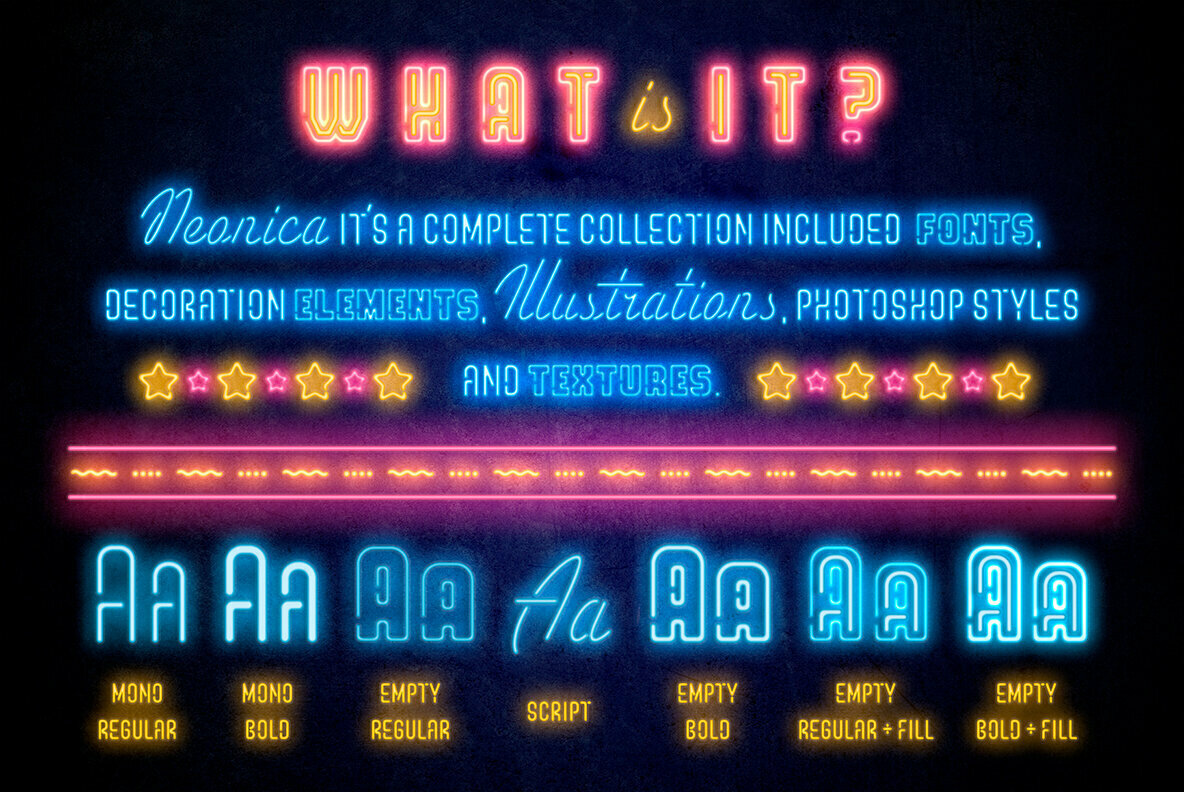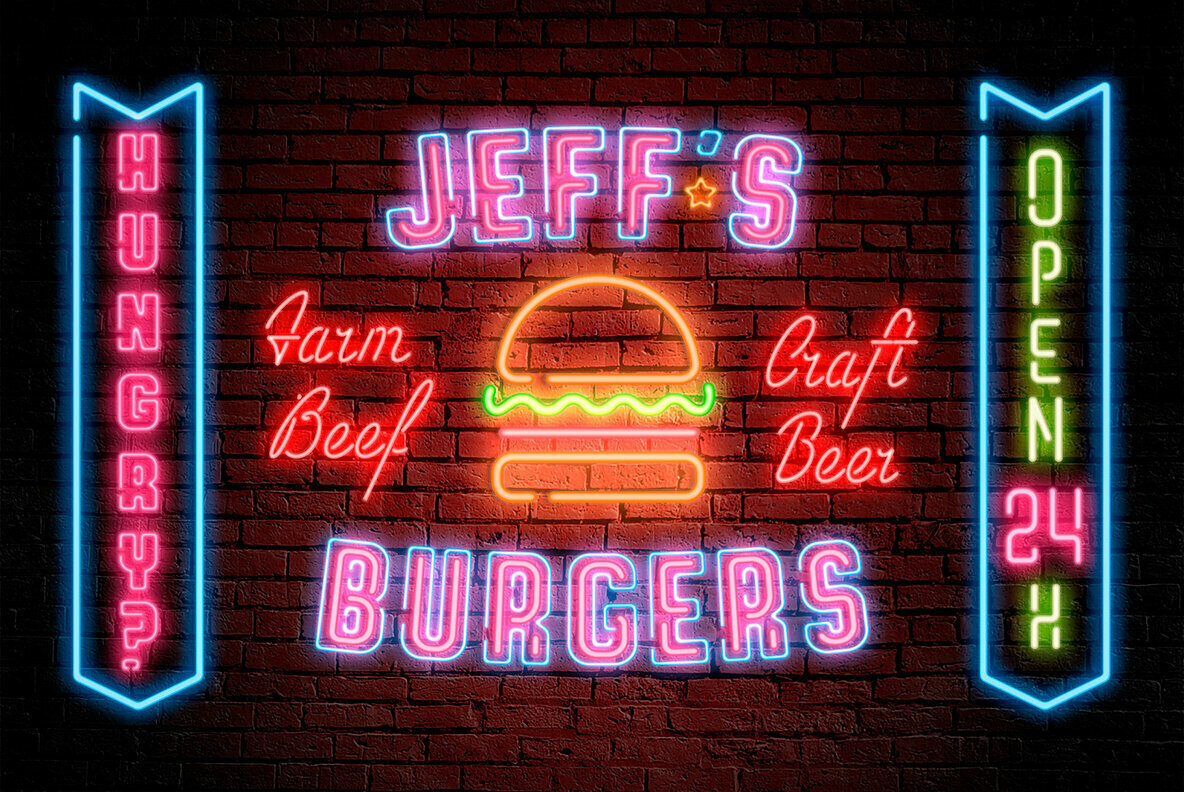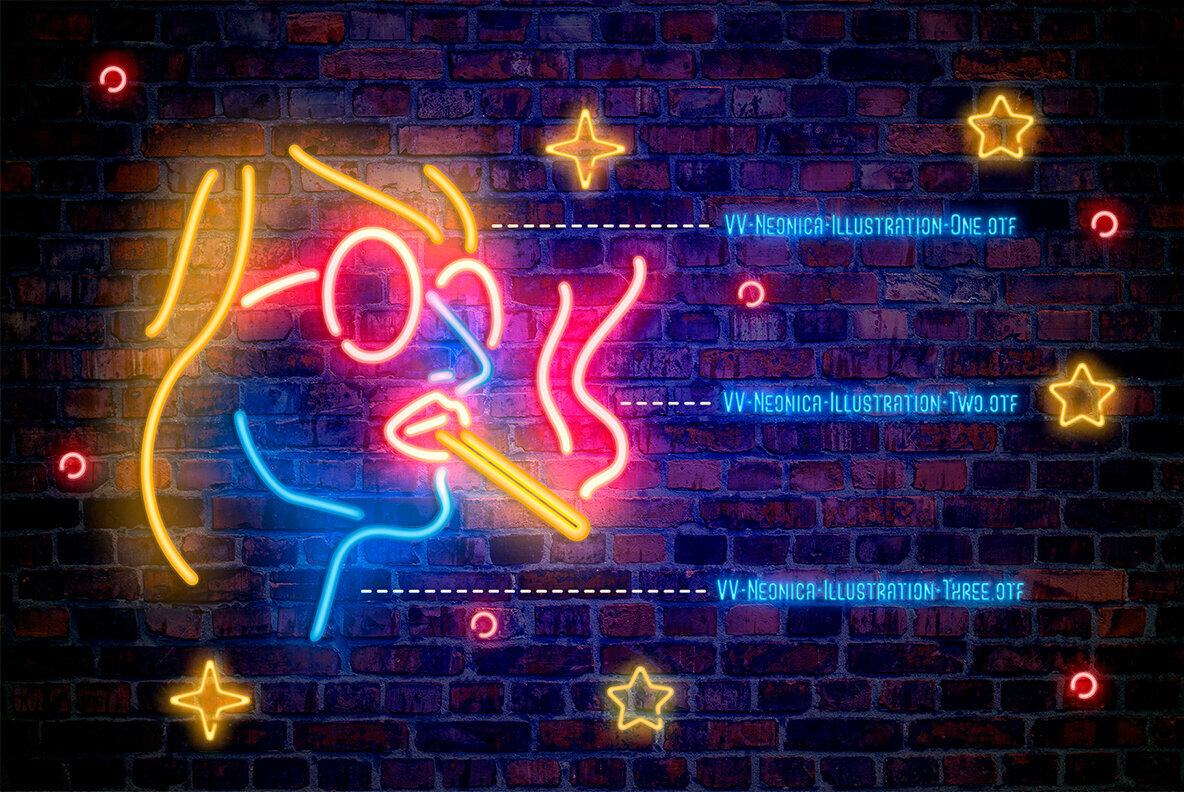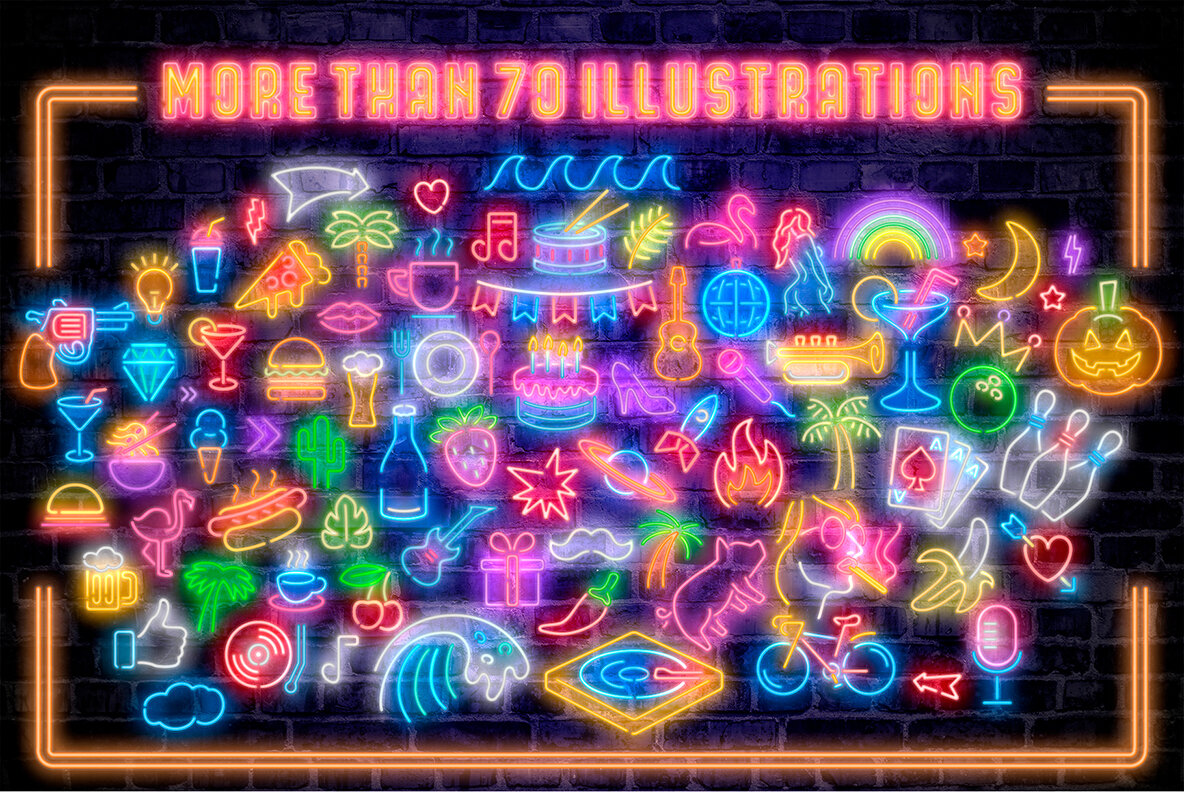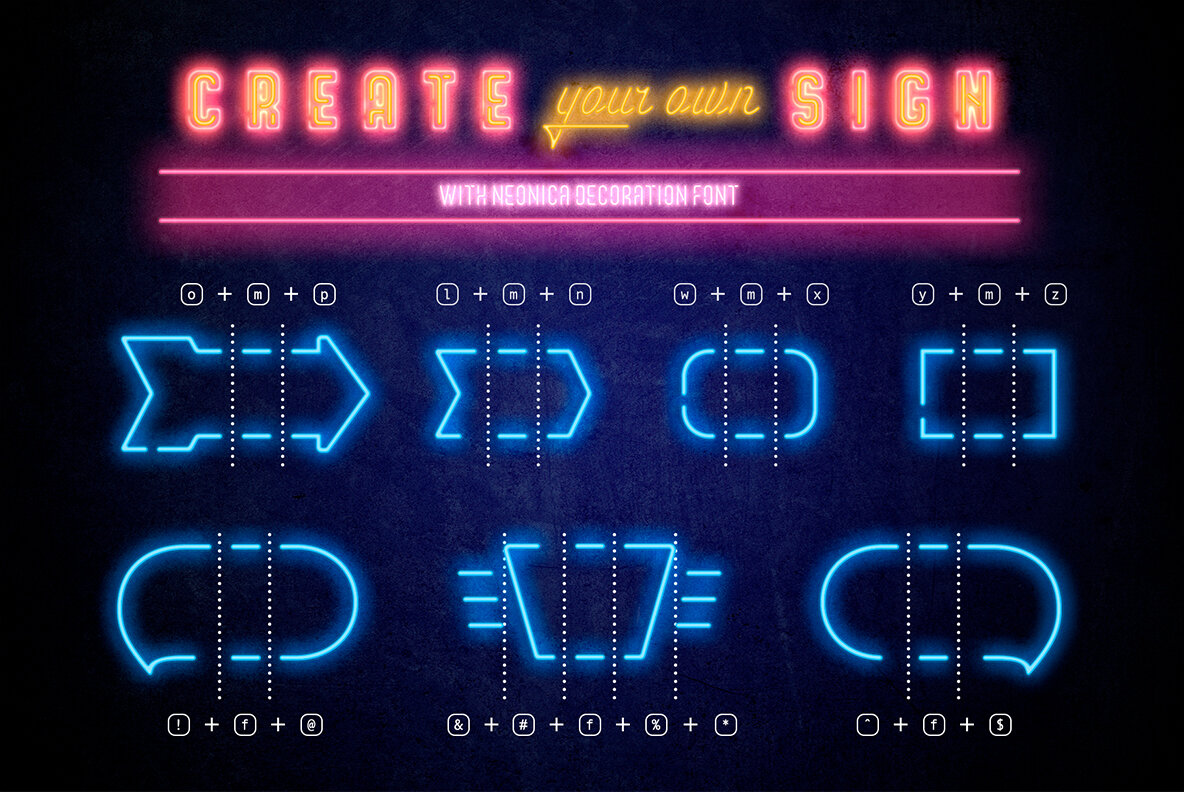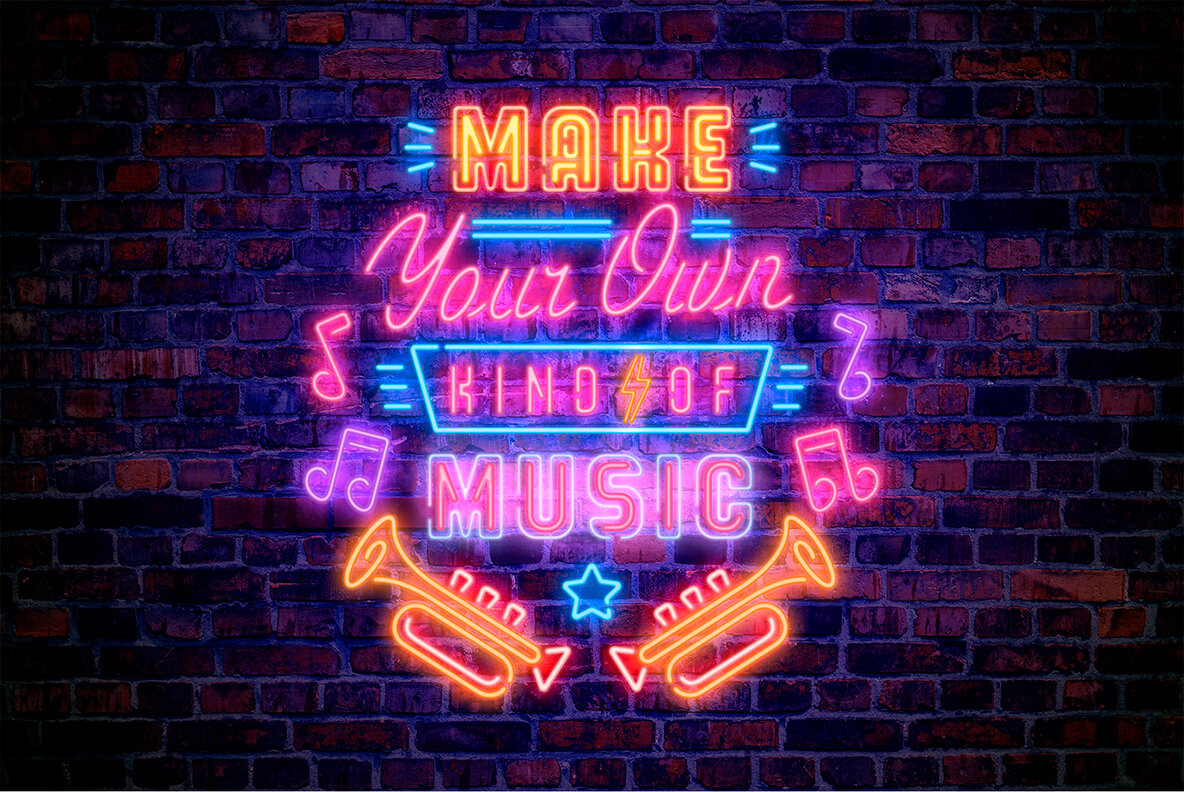
The Neonica Toolbox Font
The Neonica Toolbox - a complete collection to creating awesome neon designs! This is a complete collection which included the fonts, decorations, illustrations, Adobe Photoshop styles and HQ background textures as brick or rusty grunge walls. Create awesome graphics for few simple steps! VV Neonica contains mono lined sans, volumetric sans with inline font option and mono lined script. Also, you'll get the decoration and illustration fonts. Create your own neon signs or add the decoration to your neon graphic. The illustration font has one color or up to three color options. That mean you'll be able to create a full color neon illustration graphic for few seconds! Also, the Neonica Collection comes with Adobe Photoshop styles file (.ASL). Just add it into your Photoshop and get 19 neon colour realistic effects. This file works with any Photoshop versions. As a desert you'll get 6 HQ JPG (4000x4000 pix; 300 dpi) background textures. Enjoy!